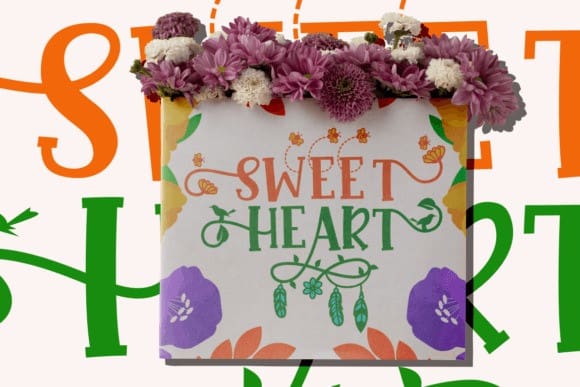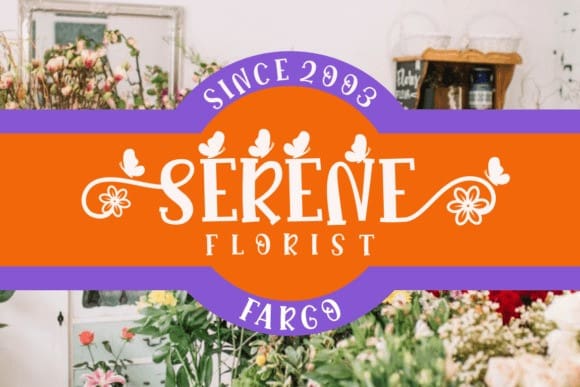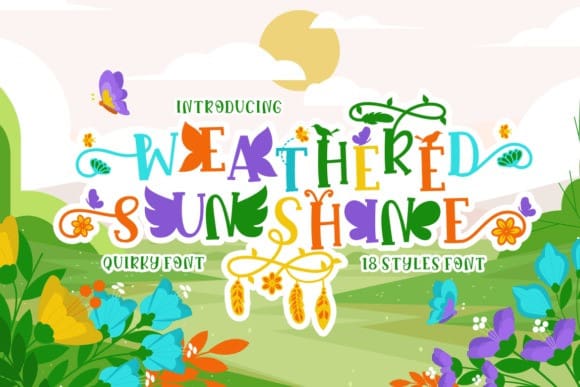
Weathered Sunshine Font
Weathered Sunshine Font, a unique typeface that encapsulates the vibrant spirit of spring. Each letter is crafted with intricate details, embodying elements of nature, including playful birds, warm bees, and fluttering butterflies. The font is a harmonious blend of quirky and fun characters, making it an excellent choice for a wide range of creative projects.
The versatility of Weathered Sunshine is one of its strongest attributes. With 18 different styles to choose from, each offering a distinct springtime vibe, designers can mix and match variations to create eye-catching and memorable designs. Whether it’s for logos, branding materials, children’s books or crafting projects – this font adds a touch of nature-inspired beauty that resonates with warmth and creativity.